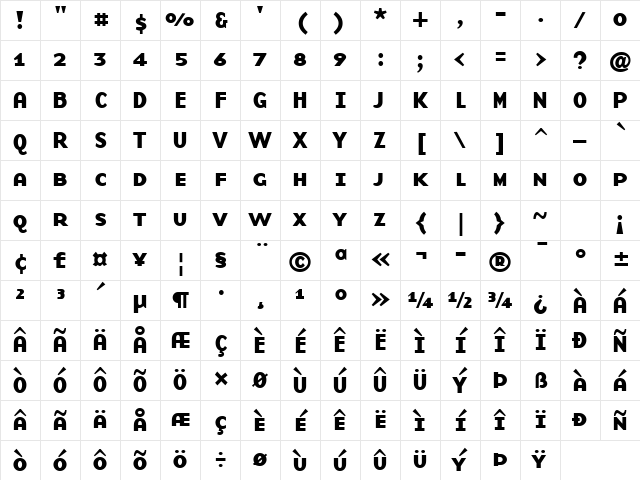
BaseNineSmallCaps Bold Free Font
BaseNineSmallCaps Bold
Design Context for BaseNineSmallCaps
BaseNineSmallCaps is a composed and adaptable typeface that performs quietly and consistently across a wide range of design contexts. Its bold stroke weight gives it real presence on the page.